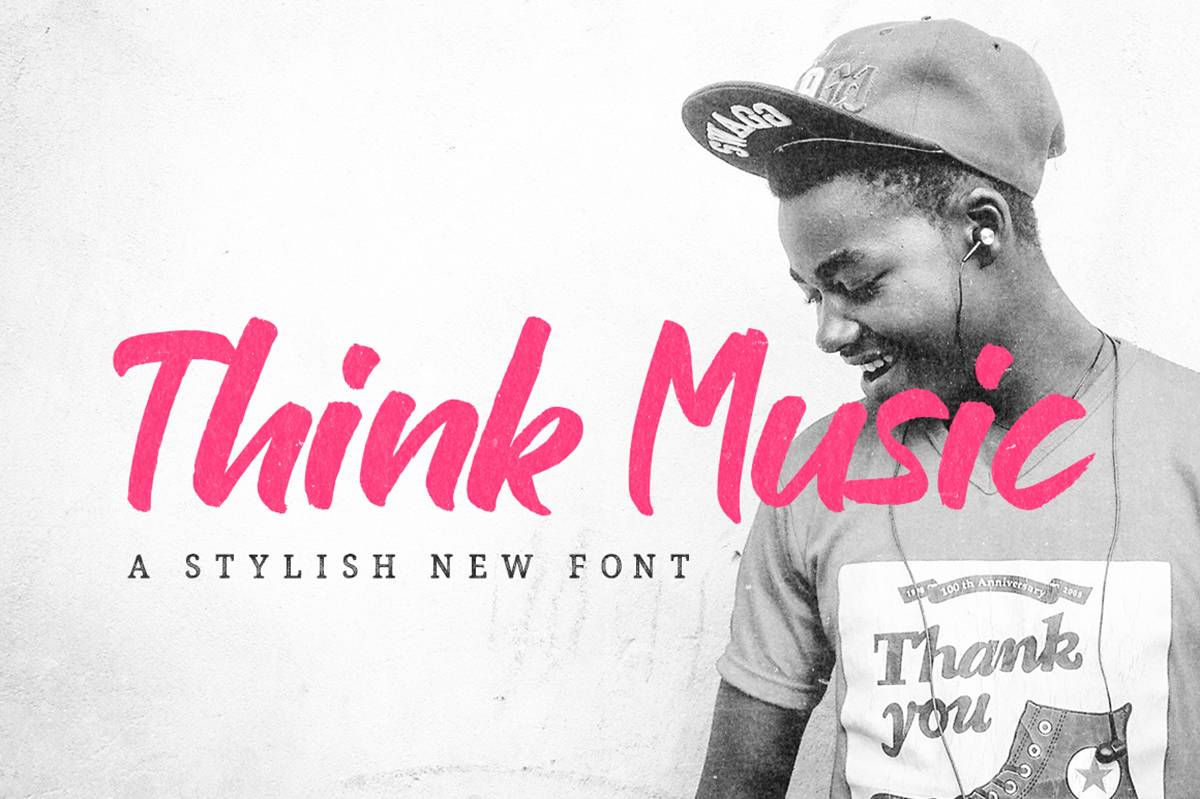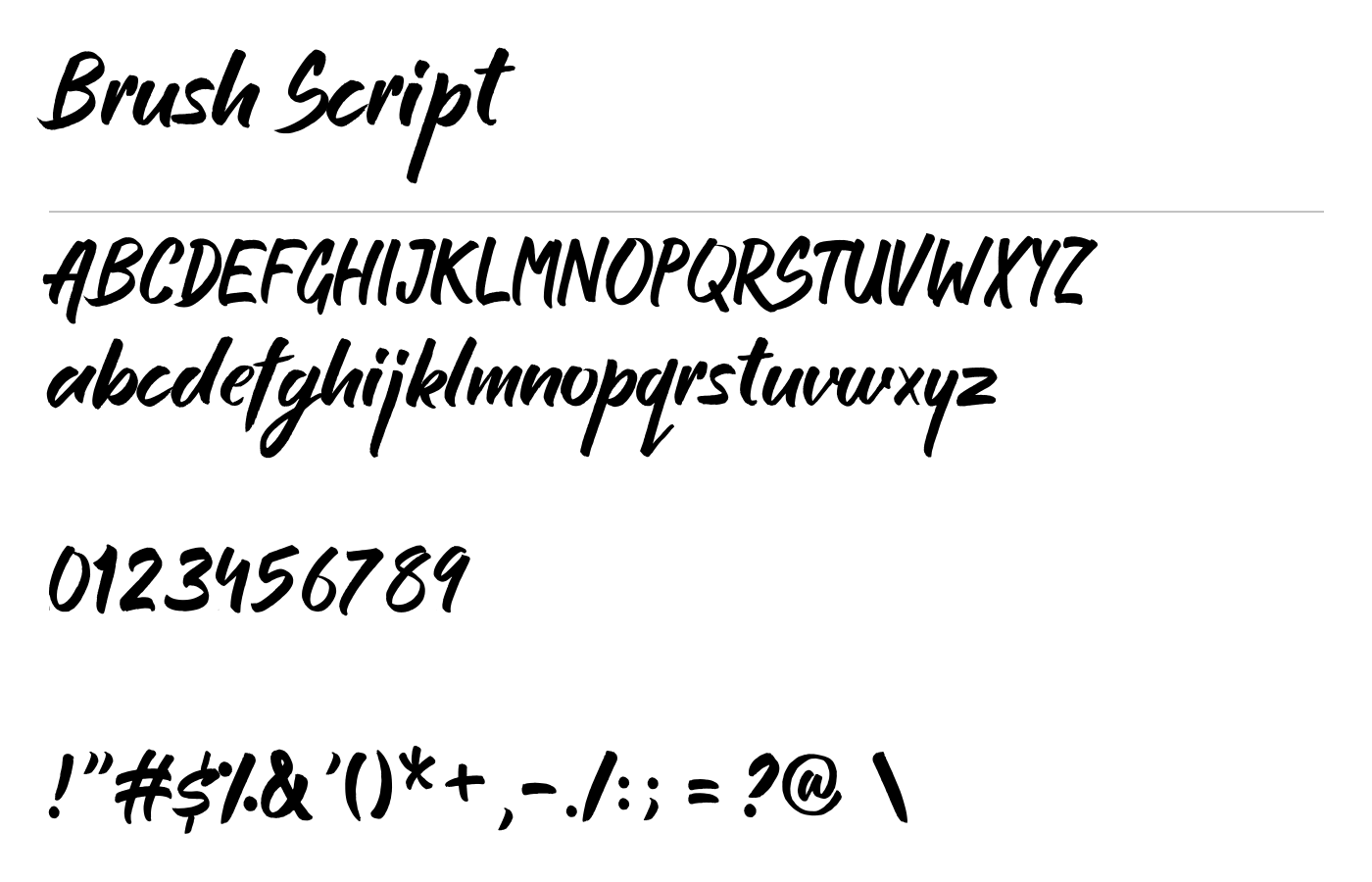
Think Music Script is a lively brush script font that combines bold, energetic strokes with a casual, handwritten feel. Its thick and slightly tapered lines create a dynamic, artistic vibe, making it perfect for creative branding, posters, and any design needing a personal, vibrant touch. This font works well for headlines and logos where a playful yet confident statement is desired.
Think Music Script Font
About Think Music Script Font